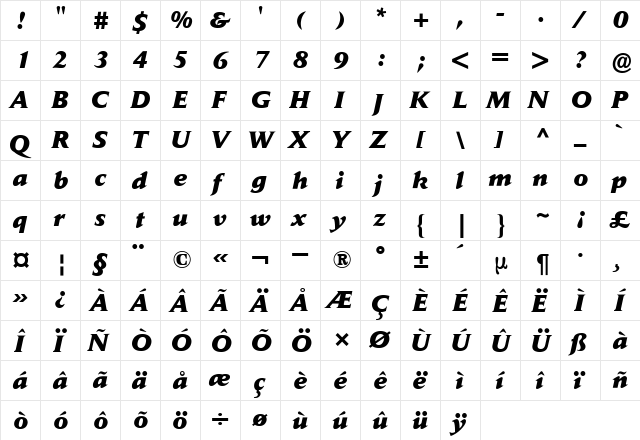
Daily News BQ ItalicBold Font Preview
Daily News BQ ItalicBold
Daily News BQ ItalicBold Font Details
| Style | ItalicBold |
Design Context for Daily News BQ Typeface
Daily News BQ offers clean, dependable letterforms without strong stylistic allegiance, making it a practical choice for designers who need flexibility. The slanted form adds forward momentum and visual energy. Its bold stroke weight gives it real presence on the page.
Pro Tip: Use Daily News BQ for emphasis, pull quotes, and subheadings where its slanted energy can add rhythm to the layout.